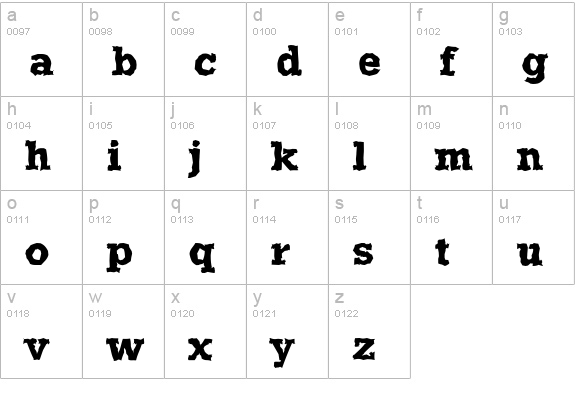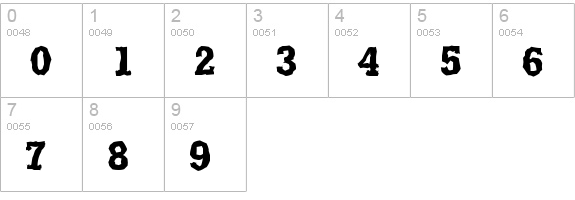
StaffordRandom-Bold Font Details
StaffordRandom-Bold is a strong, high-contrast variant in the StaffordRandom typeface family \xE2\x80\x94 well suited to headlines, attention-grabbing titles, and strong calls-to-action.
StaffordRandom-Bold font is a bold and attention-grabbing typeface that exudes confidence and modernity. Its unique design features strong, thick lines that make a bold statement in any design project. The font is perfect for headlines, titles, and any text that needs to stand out. With its distinctive character and bold appearance, StaffordRandom-Bold font adds a touch of sophistication and style to your work. The best part? StaffordRandom-Bold font is completely free to download at FontsMarket.com. This means you can easily access this stylish font and incorporate it into your projects without any cost. Don't miss out on this fantastic opportunity to enhance your designs with the striking StaffordRandom-Bold font, available for free download now!